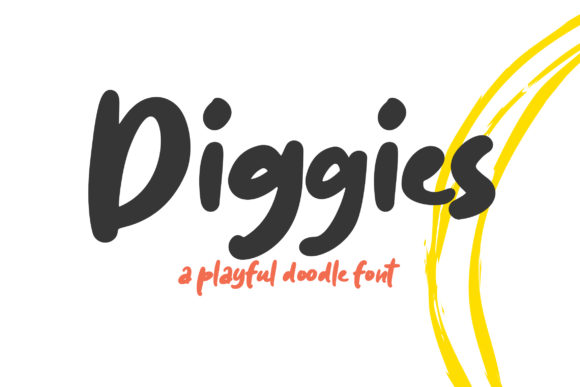
Meet Diggies Font, an enchanting display font that will ignite your creativity. Immerse yourself in the world of doodles and let your imagination soar. Diggies is the perfect font for adding a touch of whimsy and playfulness to your designs.
With its organic and handwritten style, Diggies captures the free-spirited nature of doodles. Each letter dances across the page, creating a unique and eye-catching effect. Its playful curves and whimsical shapes will bring a smile to your face and leave a lasting impression on your audience.
Whether you're a seasoned designer or just starting out, Diggies is the perfect font to unleash your creativity. Its versatility knows no bounds, making it suitable for a wide range of projects. From whimsical invitations to fun and engaging social media posts, Diggies adds a touch of magic to every design.